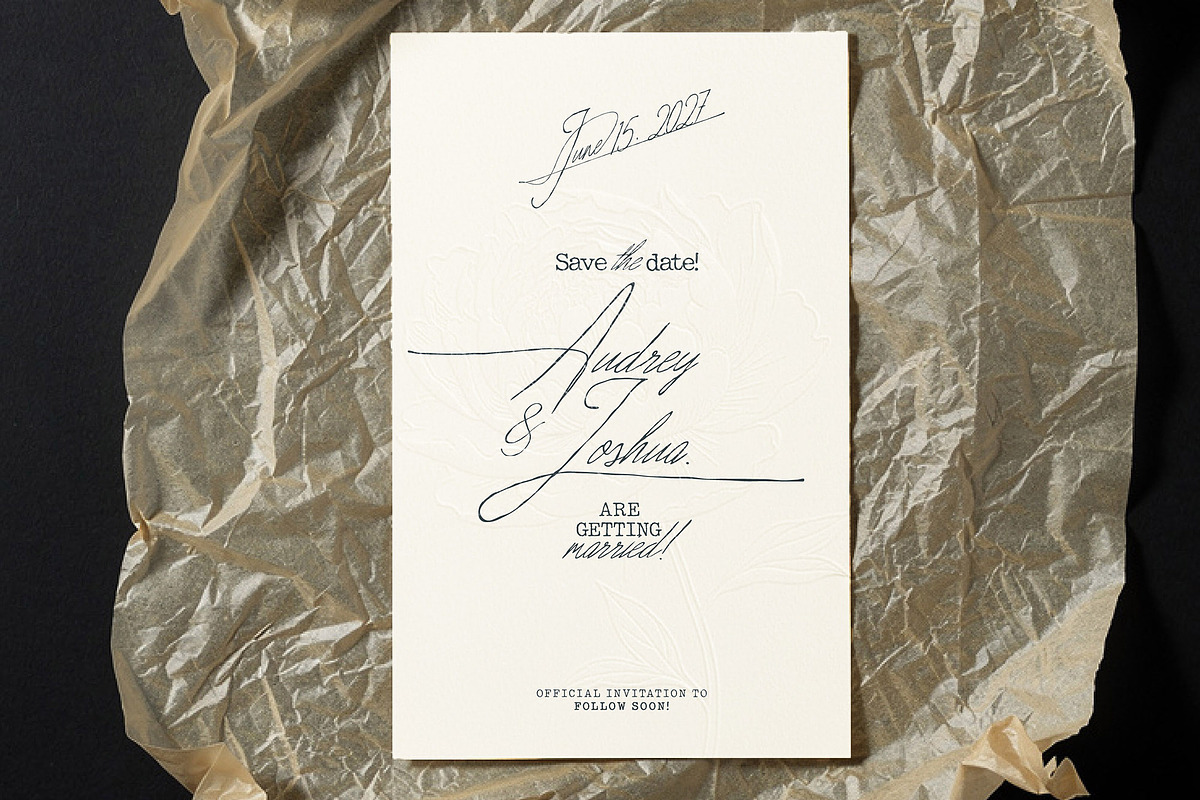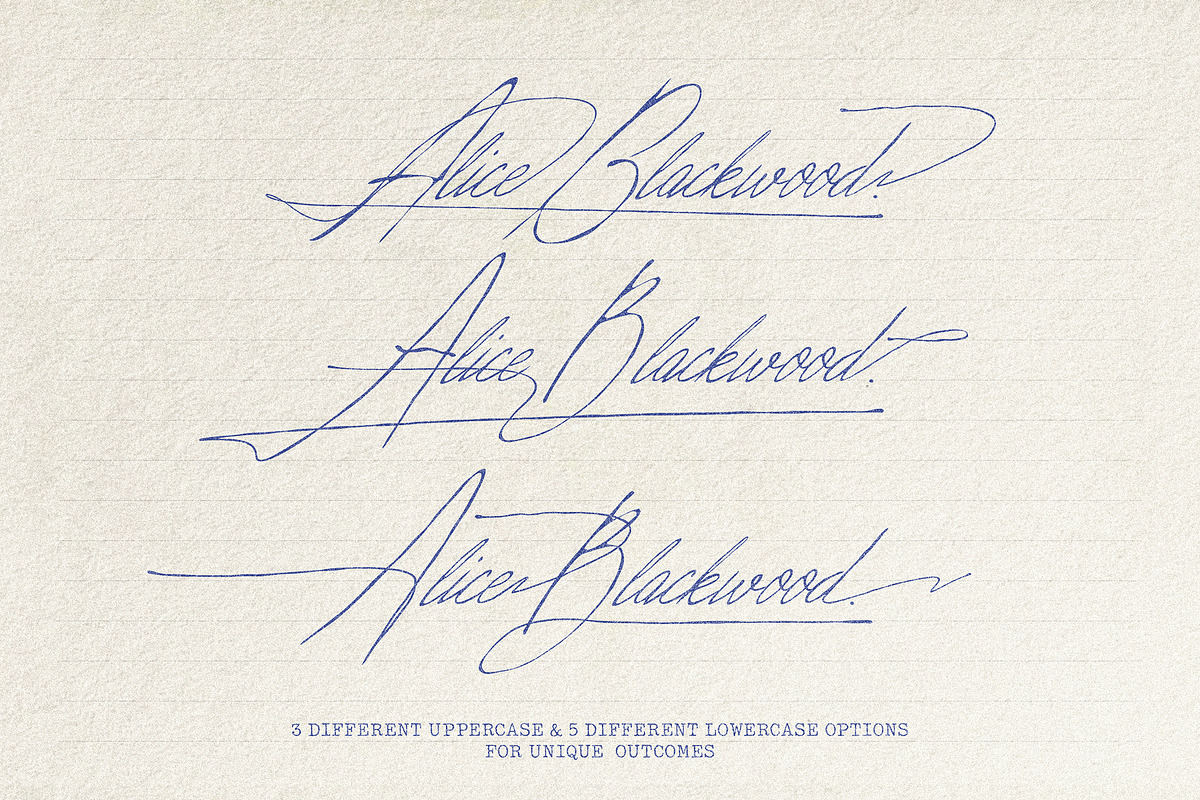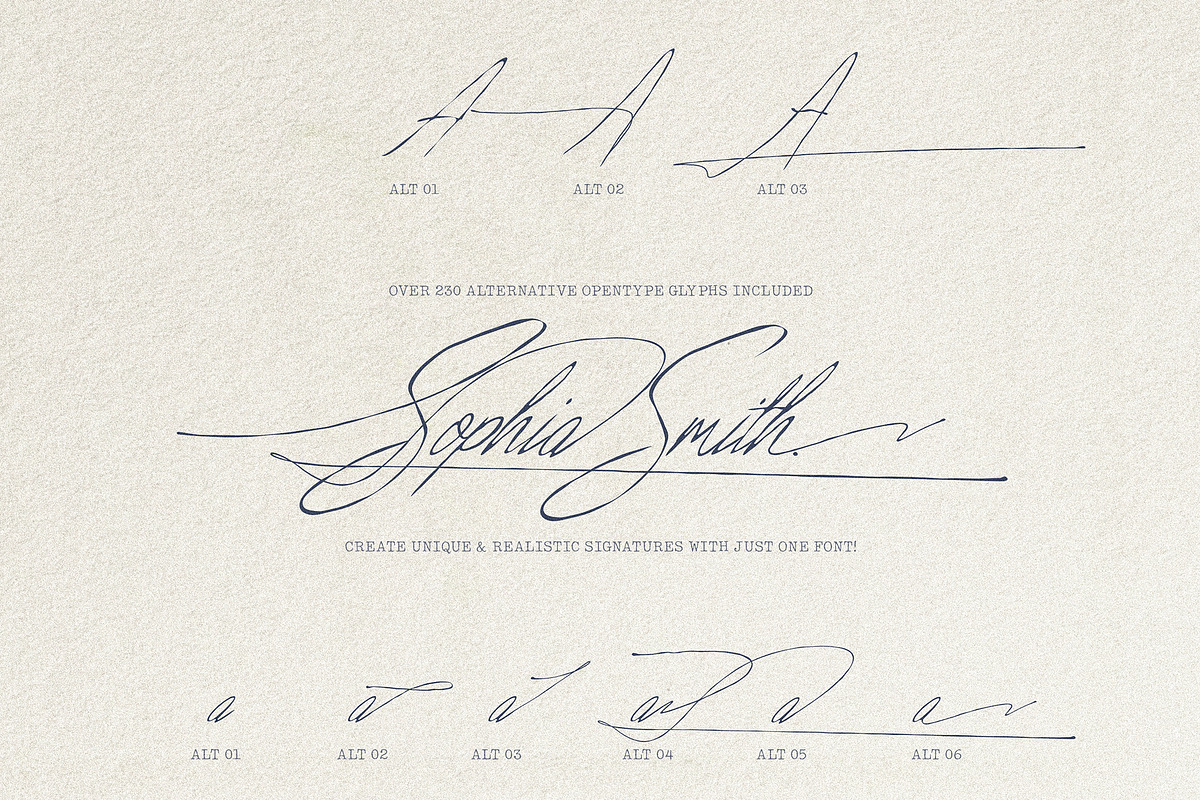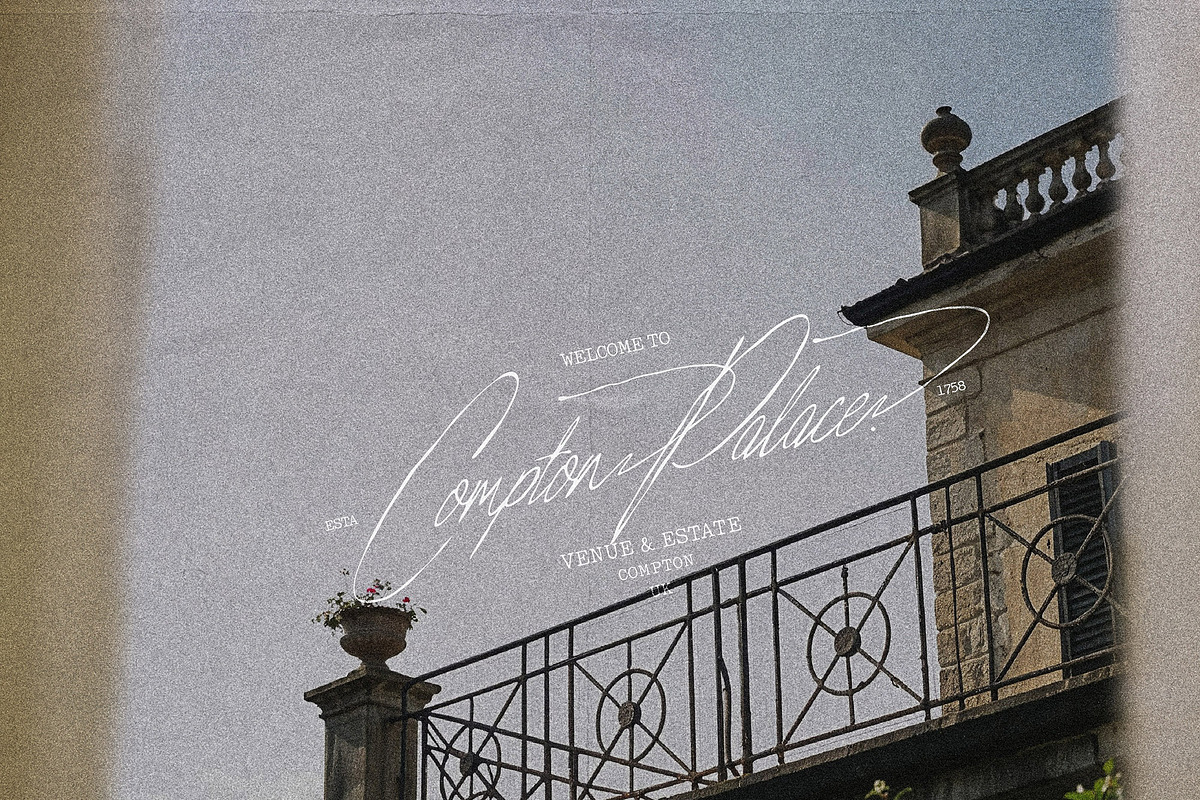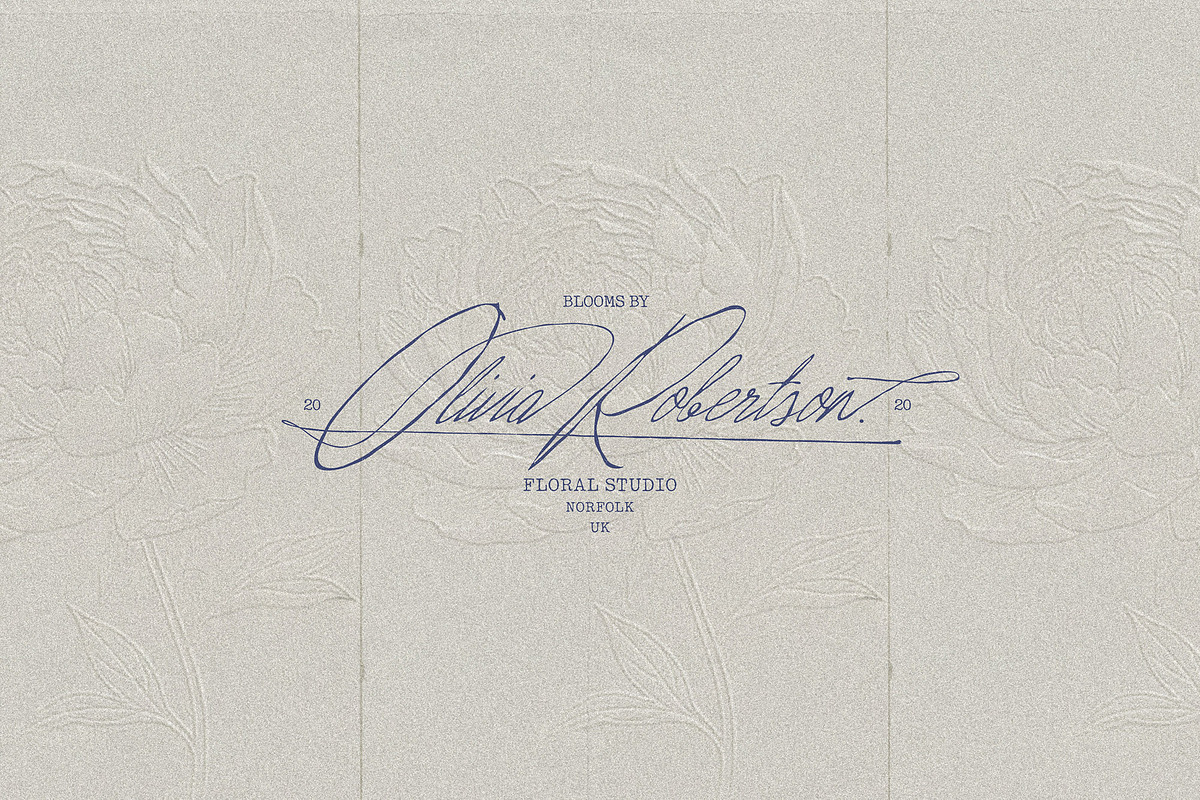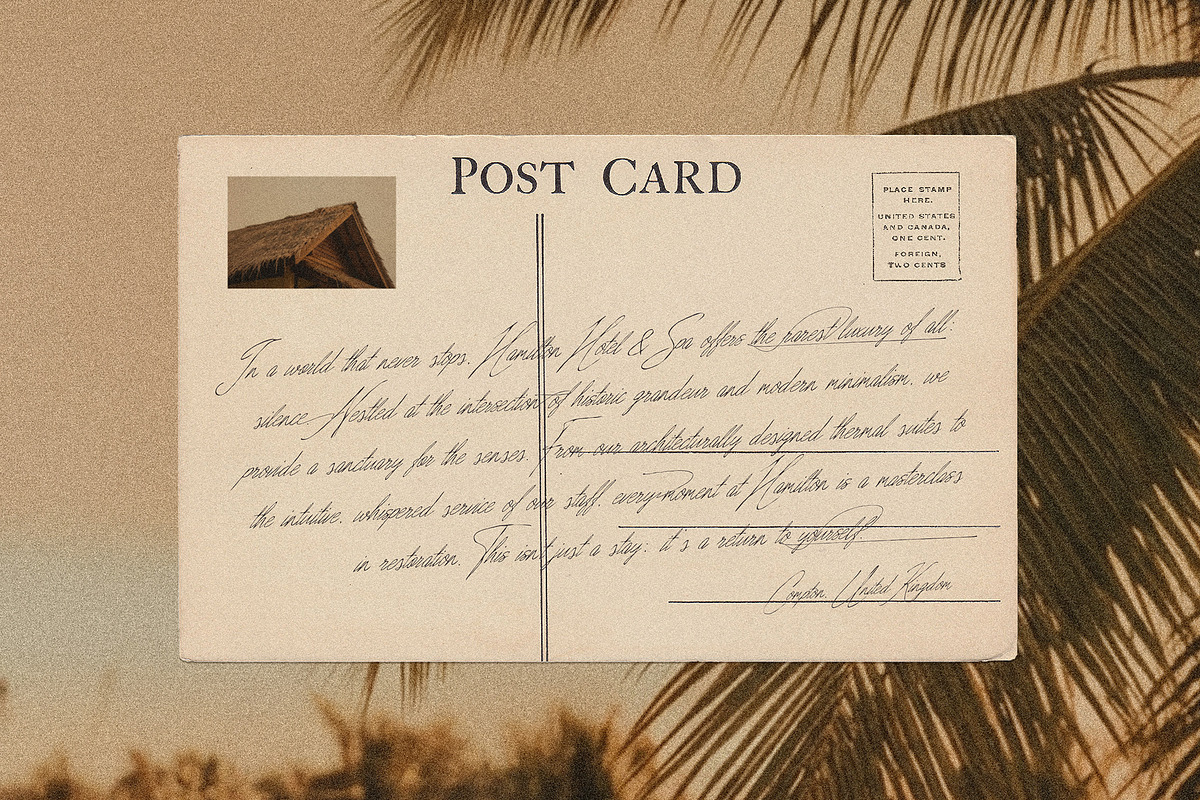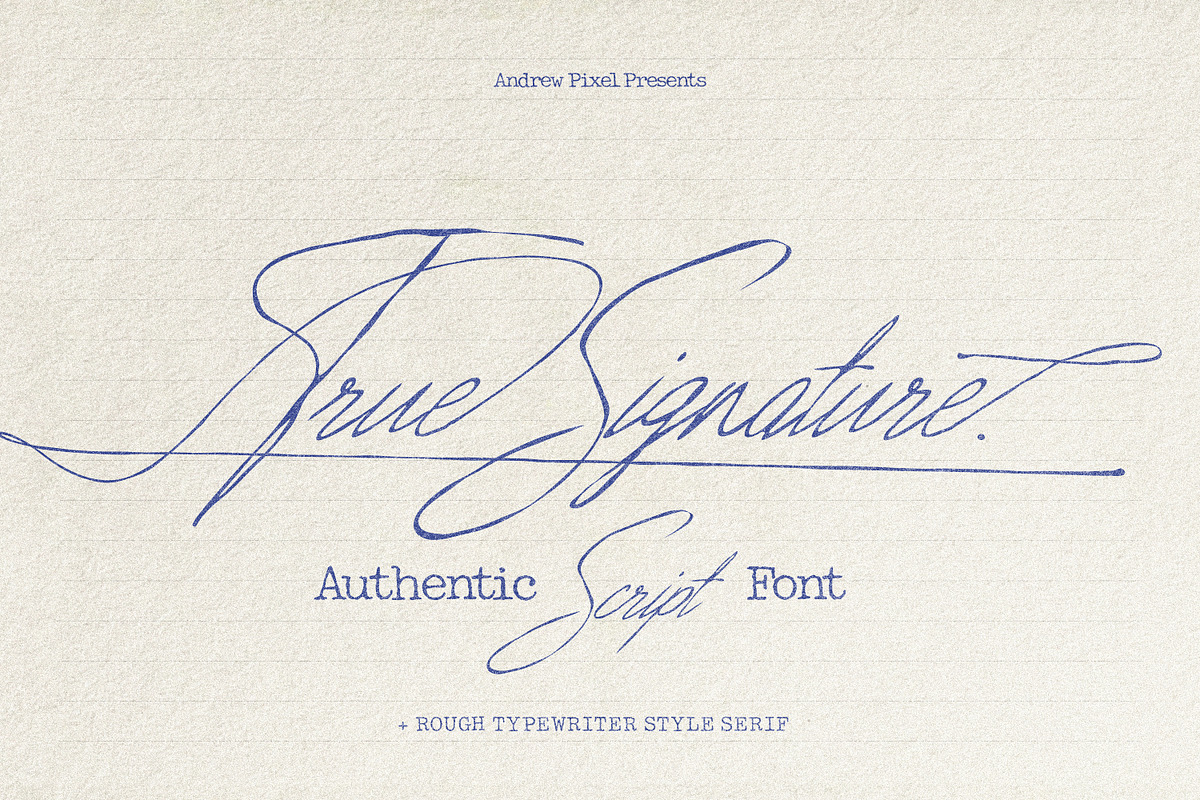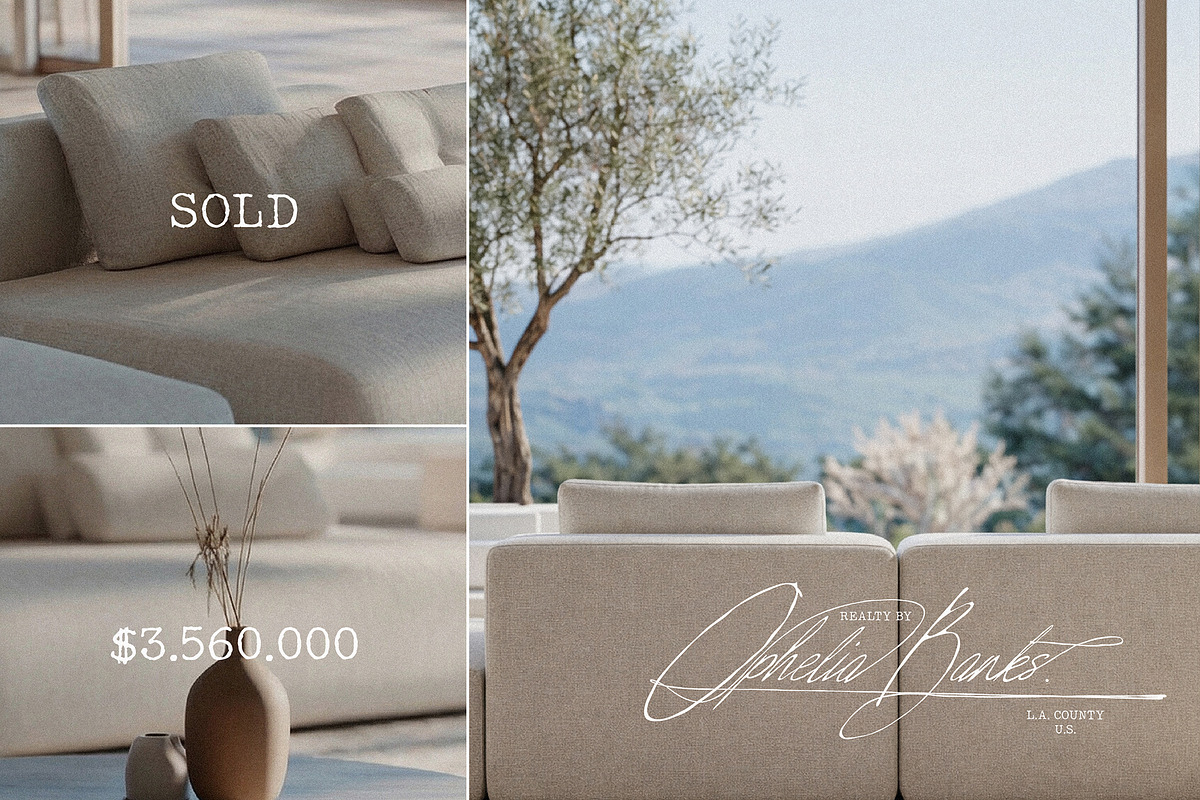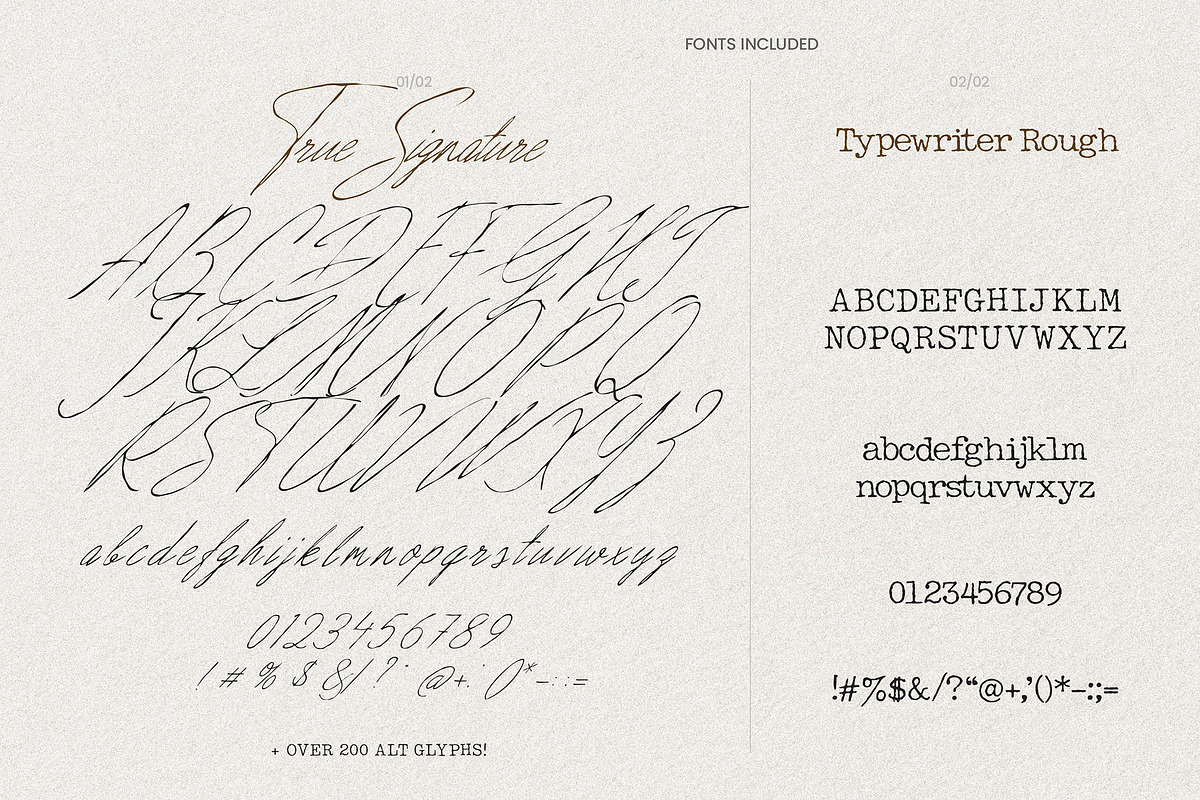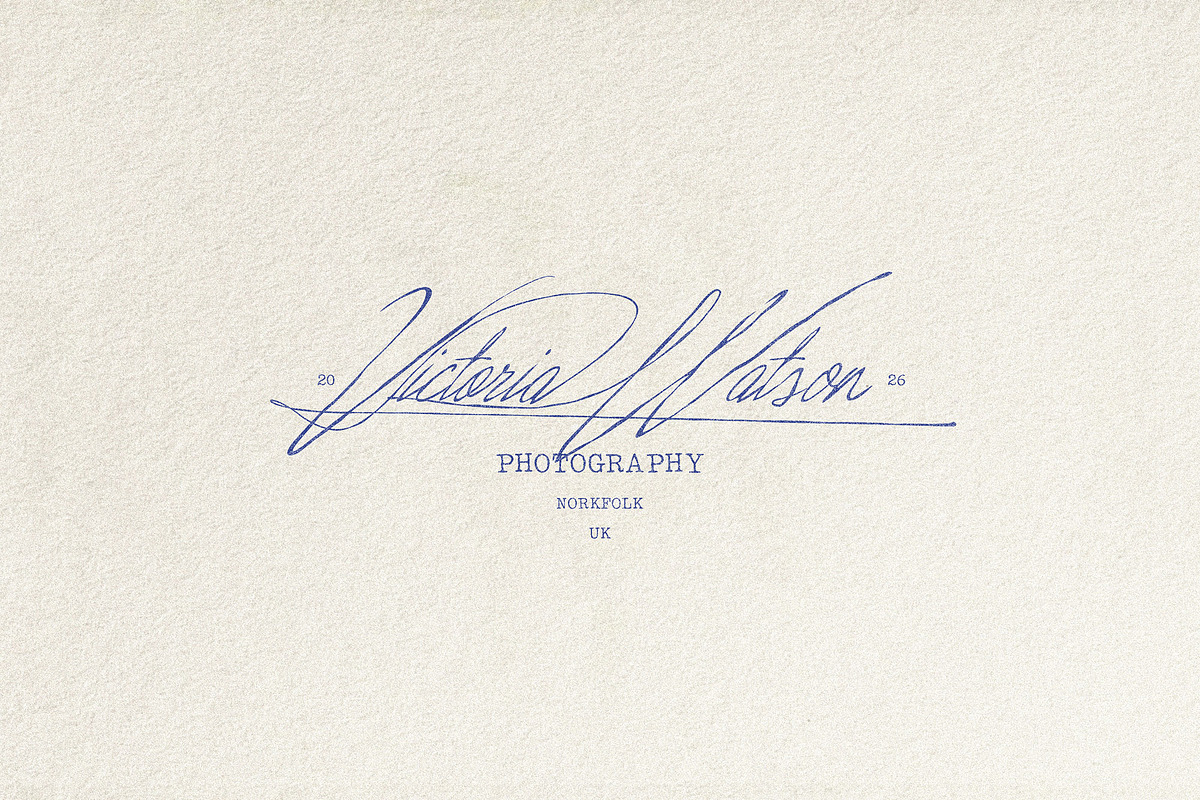
True Signature - Handwriting Script
Introducing True Signature — a stunningly realistic handwritten script font (with over 230+ alt glyphs!) that captures the elegance and spontaneity of a genuine pen-on-paper signature.
Unlike generic cursive fonts, True Signature mimics the natural imperfections, pressure variations, and flowing rhythm of real handwriting. The slightly rough ink edges and organic baseline shifts make every word feel personal, intimate, and undeniably real.
Pair the signature script with the included typewriter serif for a stunning vintage aesthetic that works beautifully for projects that require that authentic human touch feeling.
This font pack includes two complementary typefaces:
- True Signature Script (OTF) — A flowing, cursive signature font with beautiful swashes and natural pen strokes
- Typewriter Rough (OTF) — A perfectly paired vintage serif with subtle ink texture and typewriter charm
Perfect Use Cases
Branding & Logos → Personal brands, boutiques, photography studios, creative agencies
Wedding & Events → Invitations, save-the-dates, place cards, monograms, thank-you cards
Social Media → Instagram quotes, Pinterest graphics, YouTube thumbnails, story templates
Packaging & Labels → Artisan products, candles, cosmetics, wine labels, handmade goods
Business → Email signatures, letterheads, business cards, certificates of authenticity
Editorial & Print → Book covers, magazine headers, pull quotes, author signatures